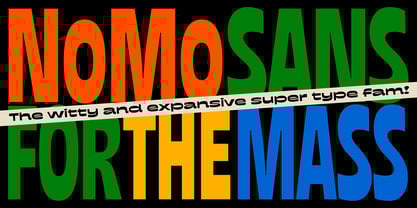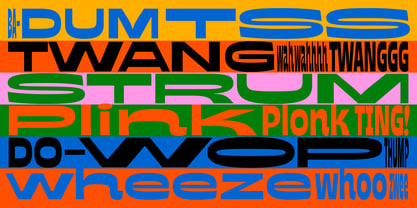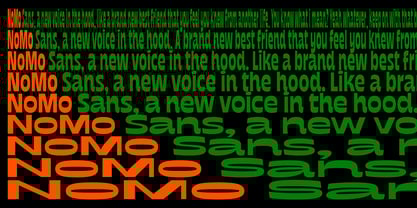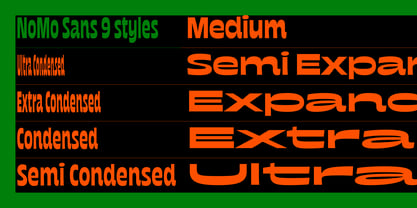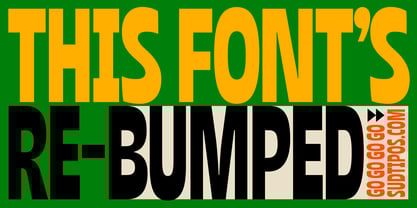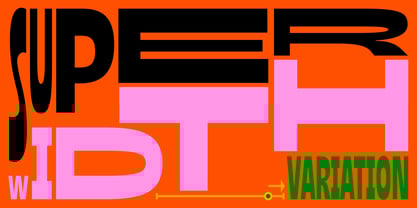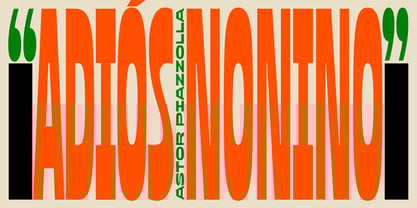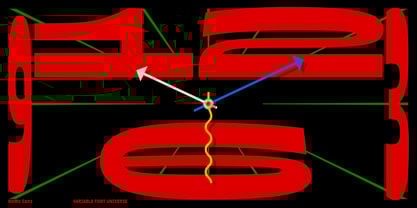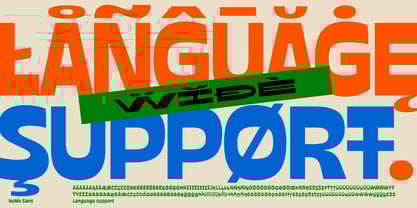
NoMo Sans
The NoMo Sans Font Family was designed by Guille Vizzari, Yani Arabena, Agustin Pizarro Maire and published by Sudtipos. NoMo Sans contains 10 styles and family package options.
A witty, expansive superfamily, NoMo Sans hits the page with the ease of a jazz riff.
What began years ago as an experiment in the irreverent and unexpected soon revealed a playful personality — full of attitude and eager to break the mold. But at first, it stayed in a narrow groove: a little condensed here, a bit expanded there. Just enough to set the mood.
Then came the remix. We asked: What if it could swing harder? So we pushed the extremes — ultra wide, ultra condensed — and reworked every shape until the system felt complete.
The result is a one‑axis variable type family with an inverted contrast, soft curves, and smooth terminals, sprinkled with quirky details that break out and improvise.
From ultra expanded to ultra condensed (a 1:22 ratio), NoMo Sans brings serious range — ready for tight ensembles or big‑band statements. Whatever the tempo, this typeface knows how to swing.